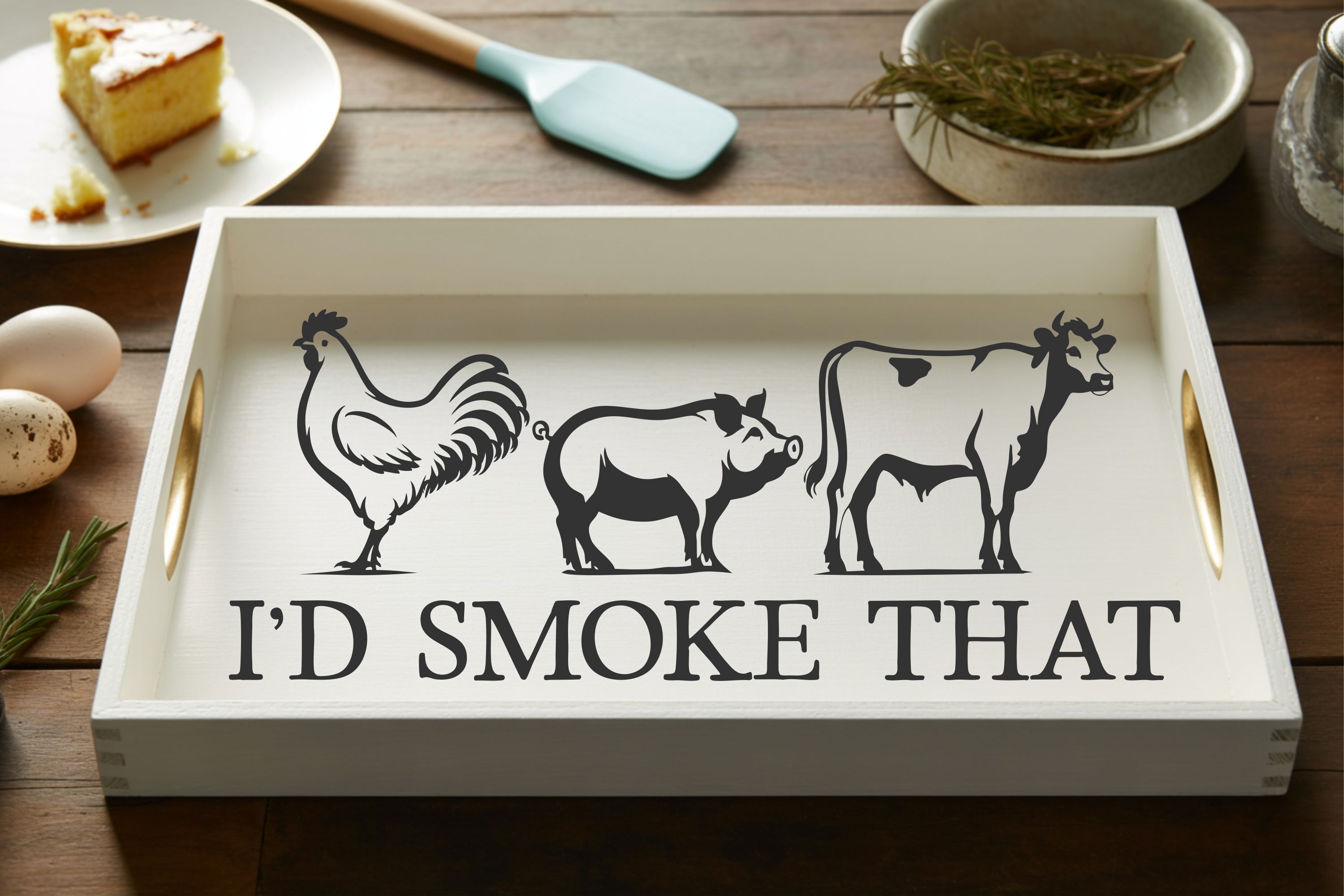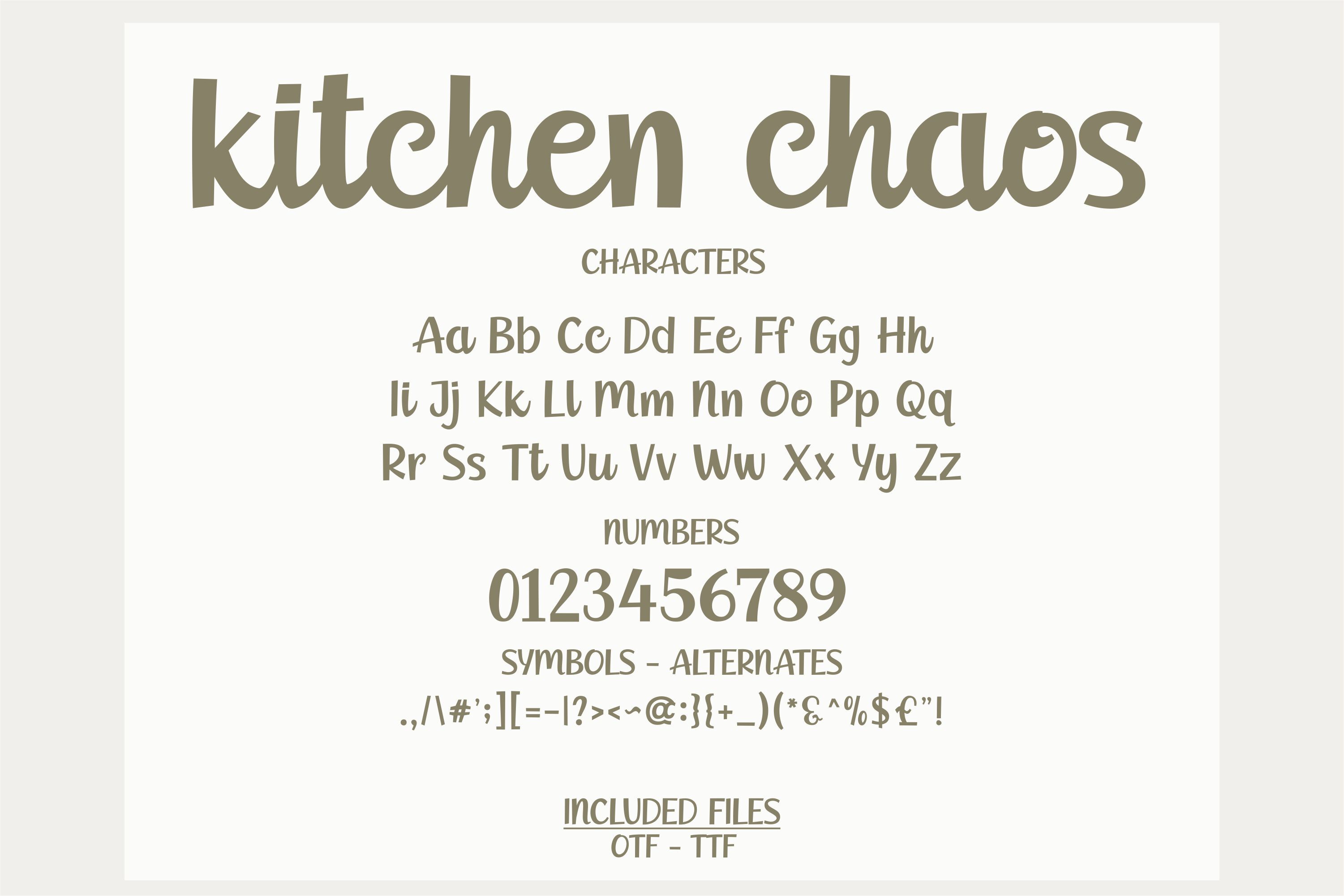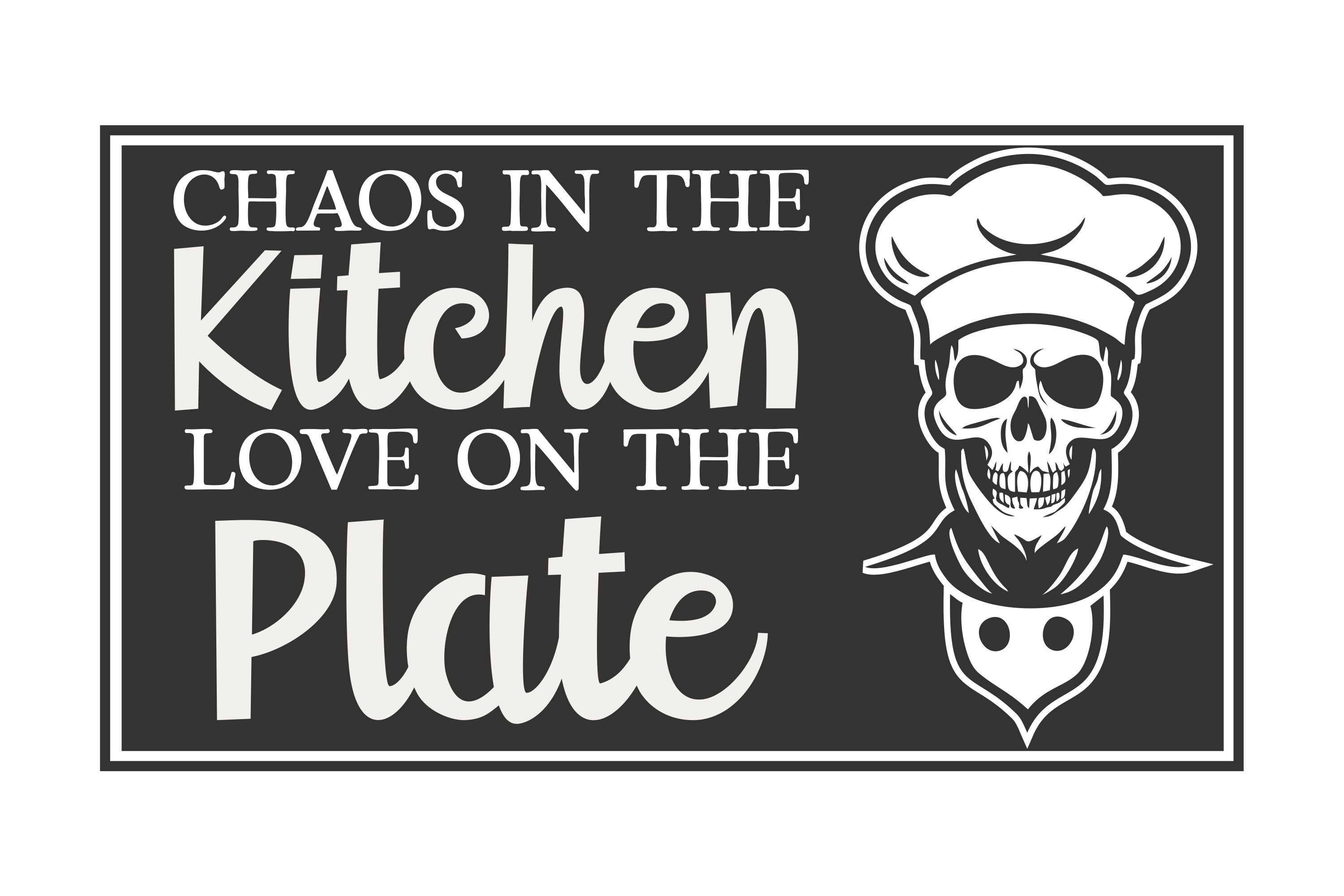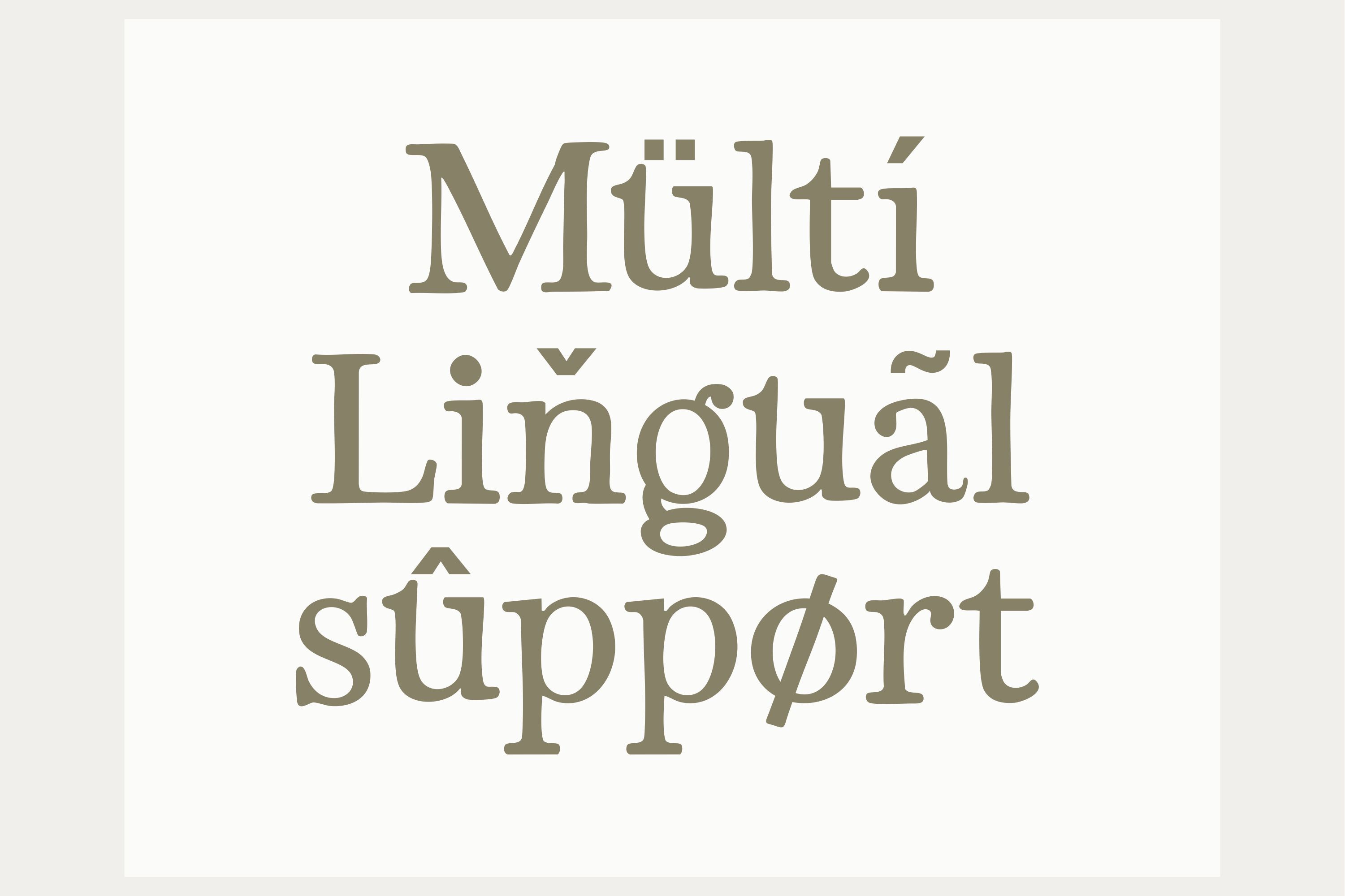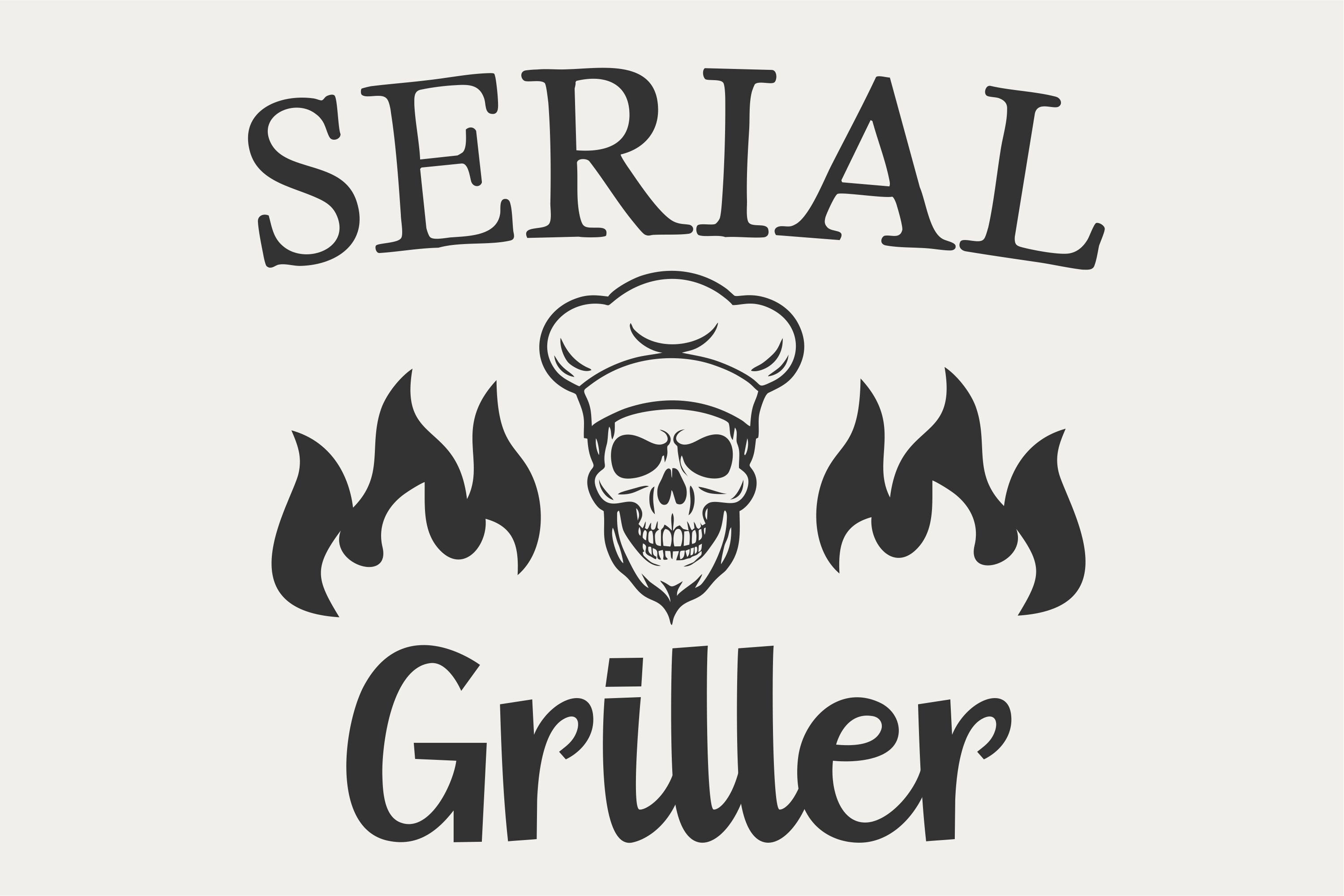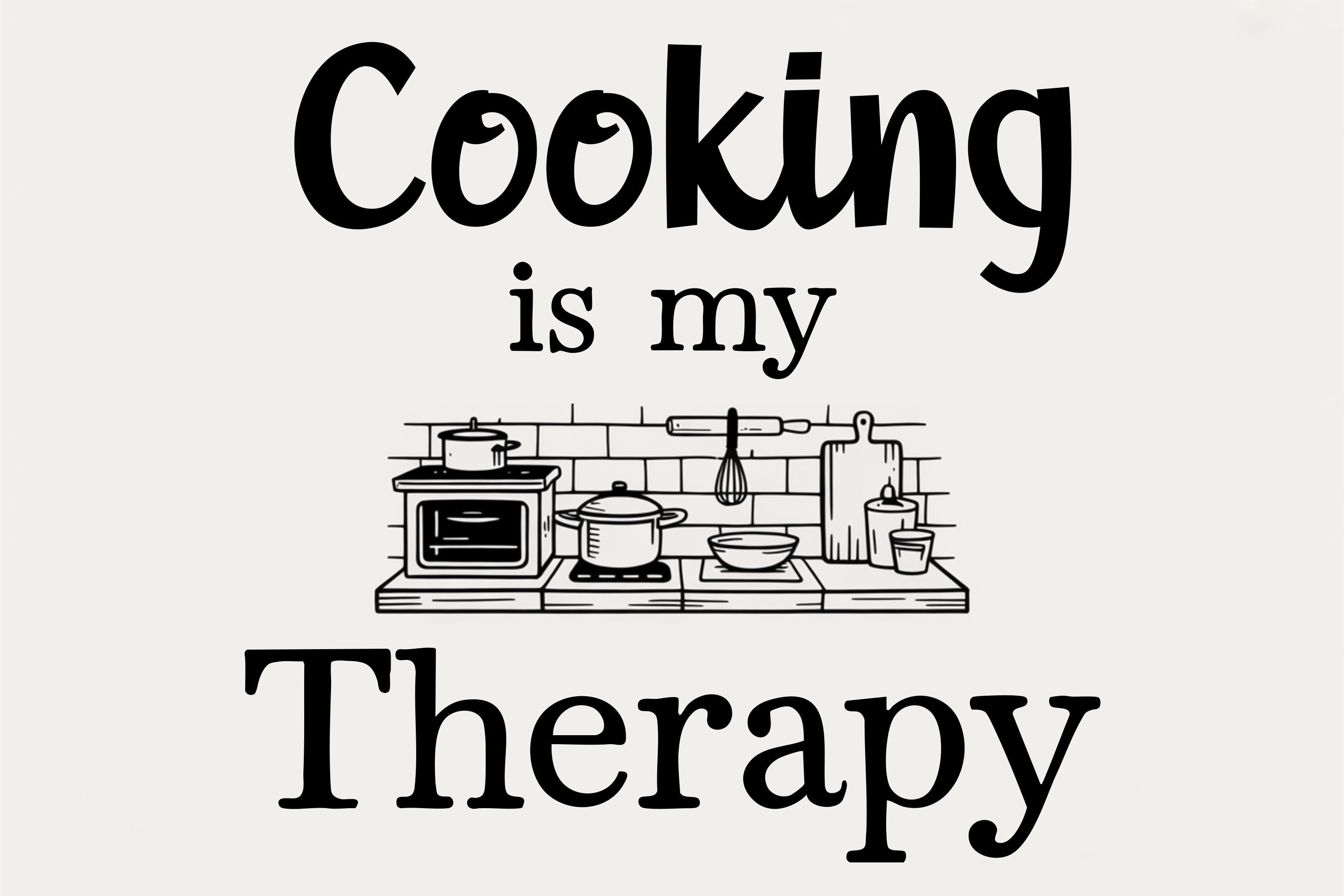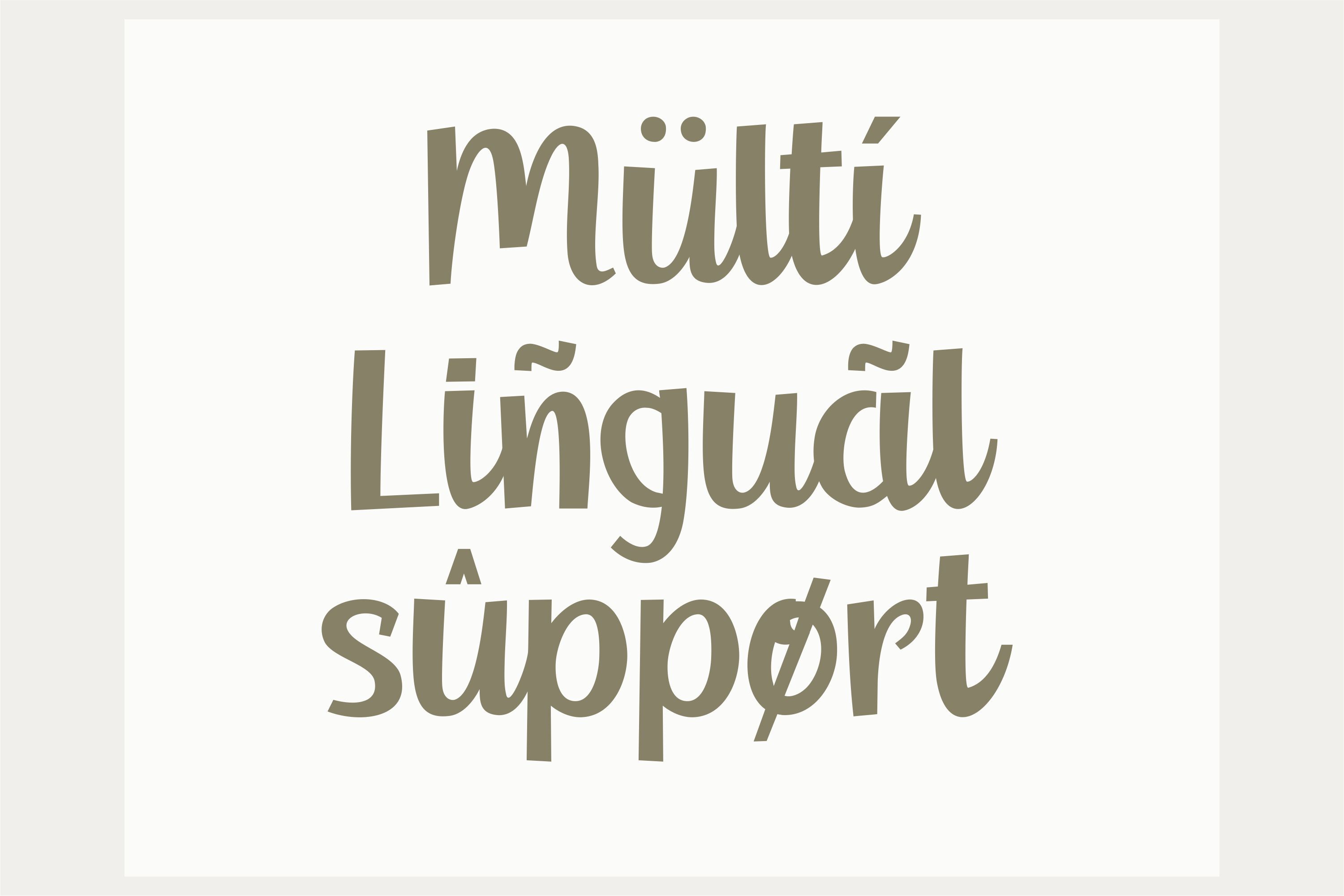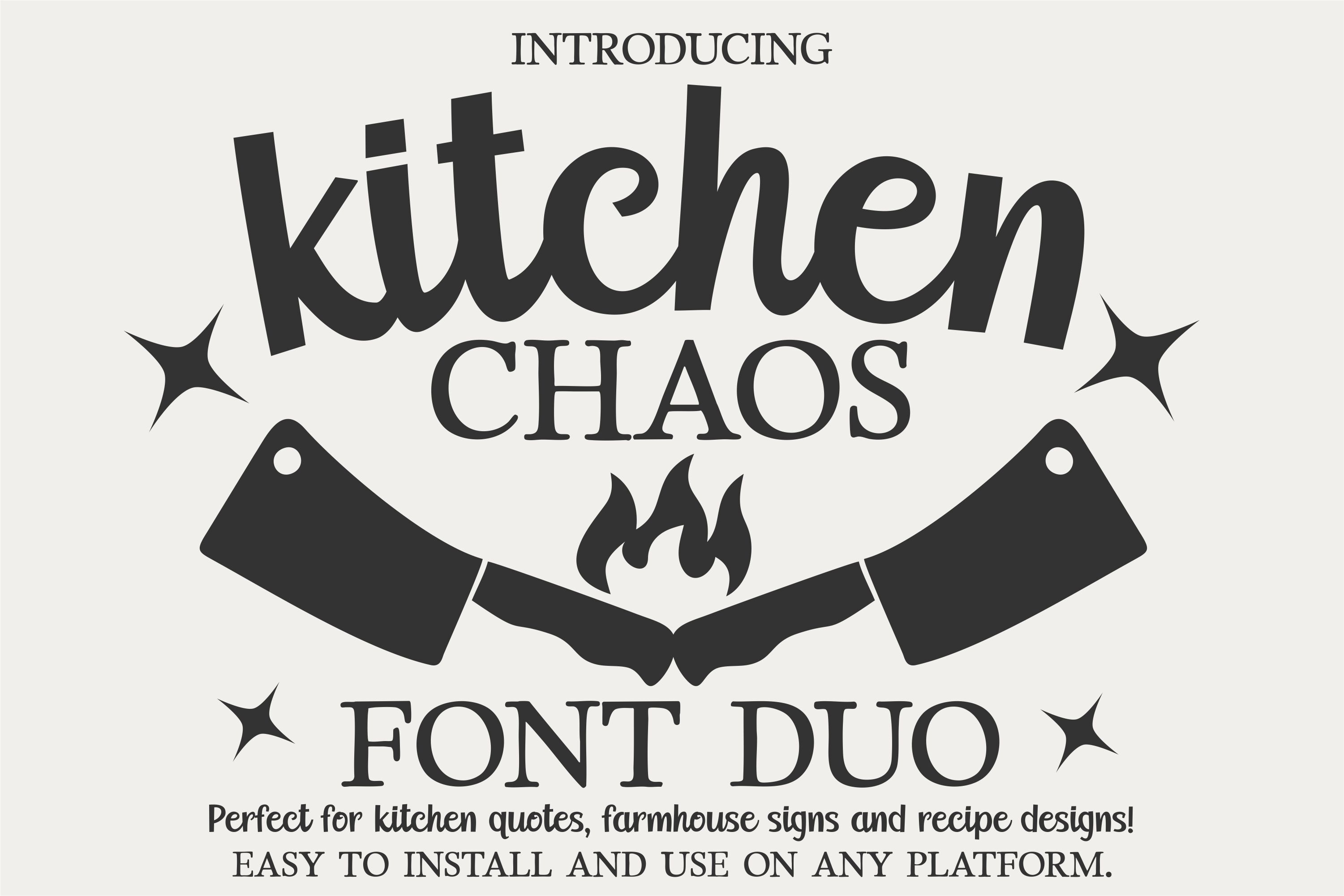
Introducing Kitchen Chaos Font Duo – the ultimate font pairing for farmhouse lovers, cooking enthusiasts, and kitchen décor designers! This duo features a playful handwritten font and a rustic serif that work together beautifully to create bold, eye-catching designs. Perfect for kitchen quotes, farmhouse signs, recipe cards, menu boards, cookbook covers, pantry labels, or any DIY kitchen craft project.
The handwritten style brings a friendly, casual vibe, while the serif adds structure and elegance, making them an ideal match for mixing and matching in your projects. Both fonts include uppercase, lowercase, numbers, punctuation, and alternates, plus full multilingual support to work with multiple languages.
Perfect for: Kitchen wall signs, cooking quotes, apron and towel designs, recipe books, farmhouse décor, pantry and spice jar labels, café menus, t-shirt designs, mug prints, stickers, social media graphics, and more.
Create warm, inviting, and fun kitchen projects with Kitchen Chaos Font Duo — your new go-to typeface for cozy and creative cooking-inspired designs!
Kitchen Chaos Font: Playful Handwritten & Serif Letters for Farmhouse